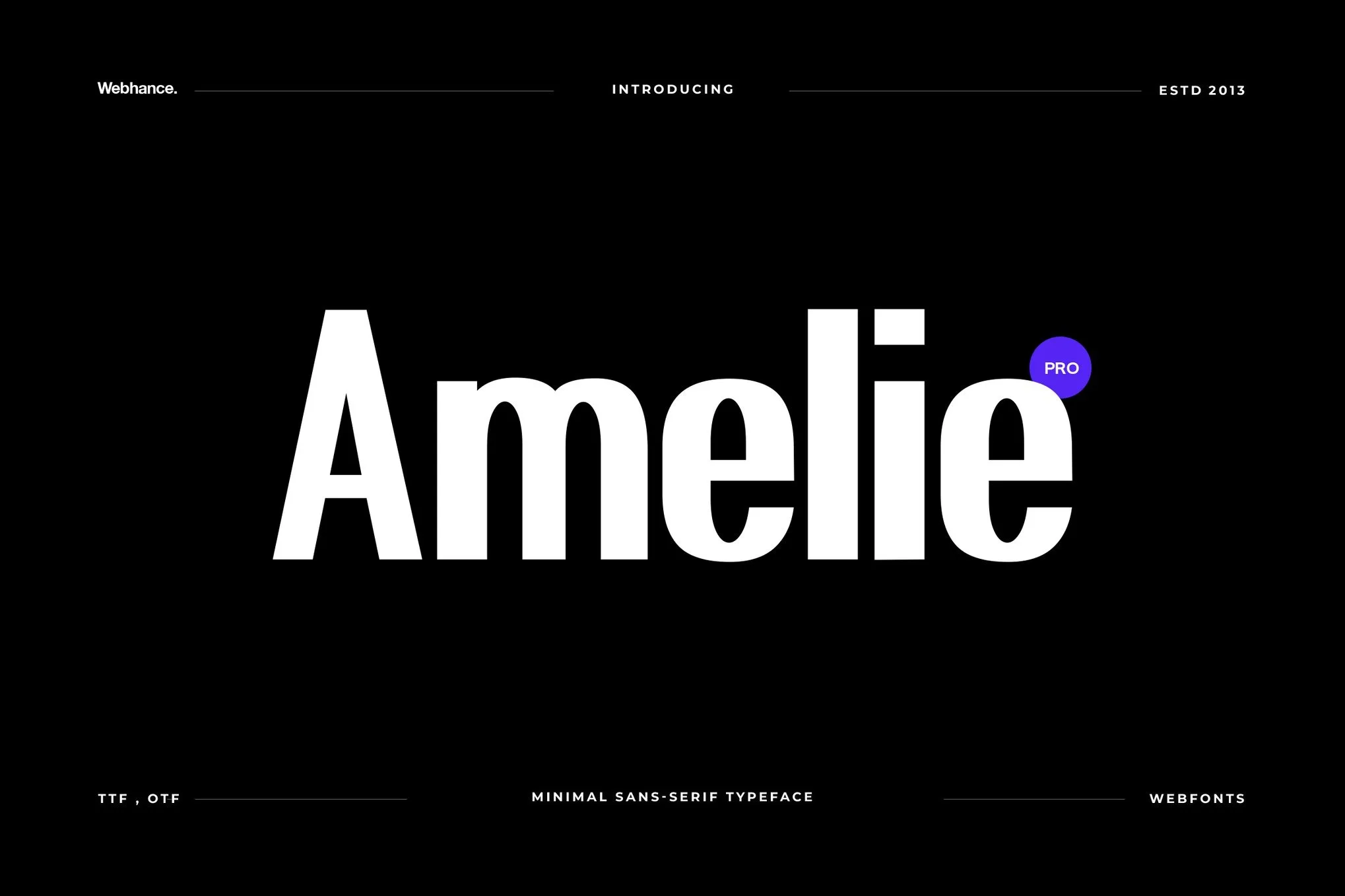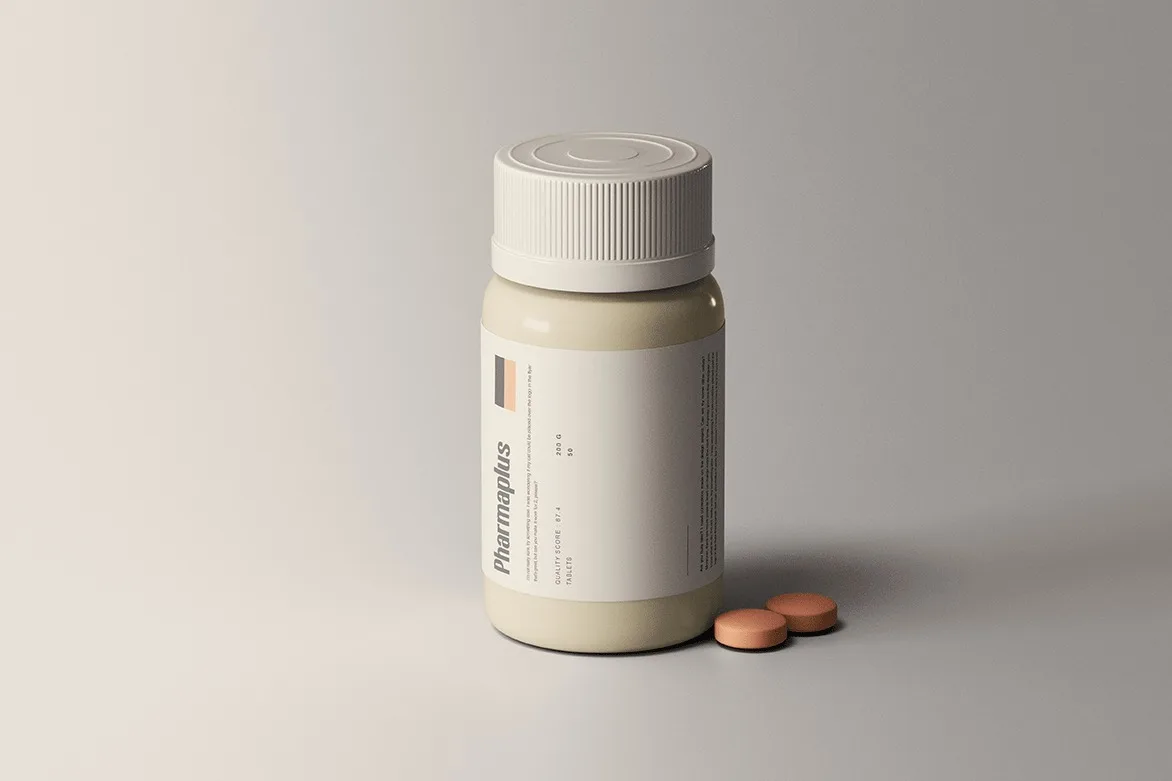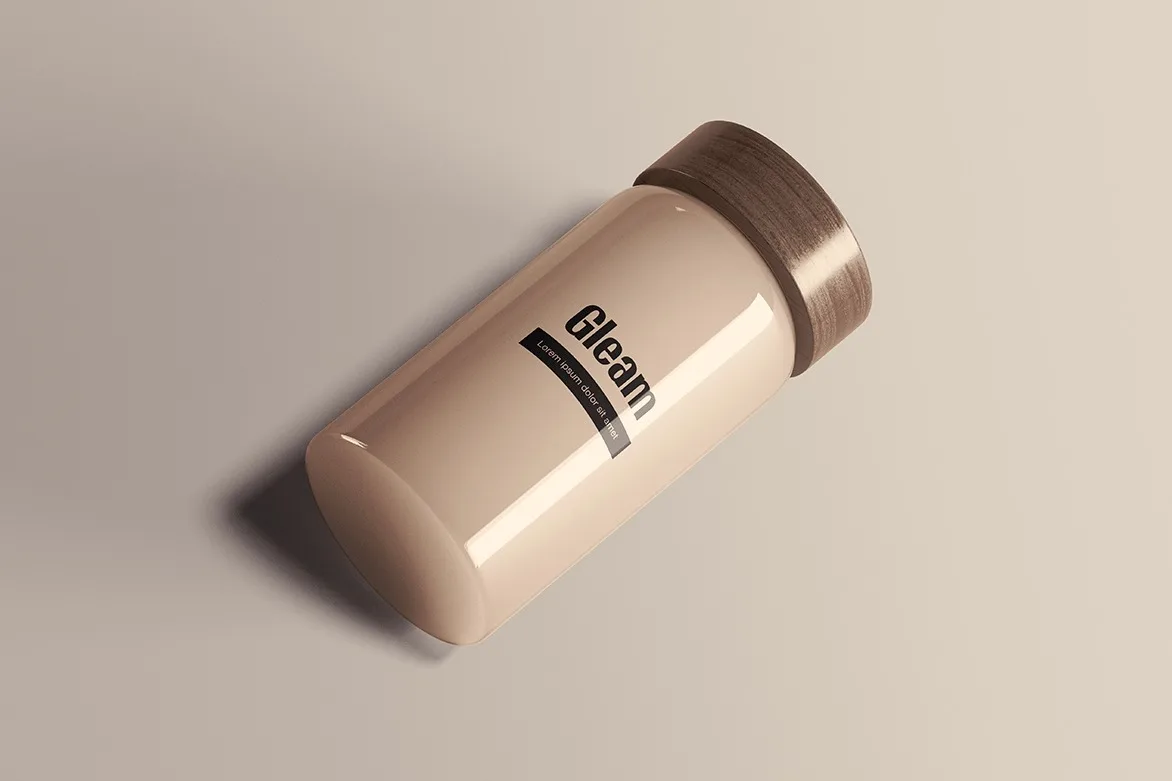
Amelie
0Introducing Amelie Sans, a beautiful and versatile typeface designed to effortlessly blend beauty and functionality in your projects. Its elegance knows no bounds, making it a splendid choice for any modern design aesthetic, from sleek minimalistic designs to captivating Instagram posters and eye-catching YouTube thumbnails. Amelie Sans offers a world of possibilities thanks to its comprehensive coverage, including uppercase, lowercase, numbers, and punctuation. Crucially, this font comes with extended multilingual glyphs, ensuring global reach for your projects. The package includes OTF, TTF, and full Web Fonts for seamless integration, along with free future updates and feature additions.